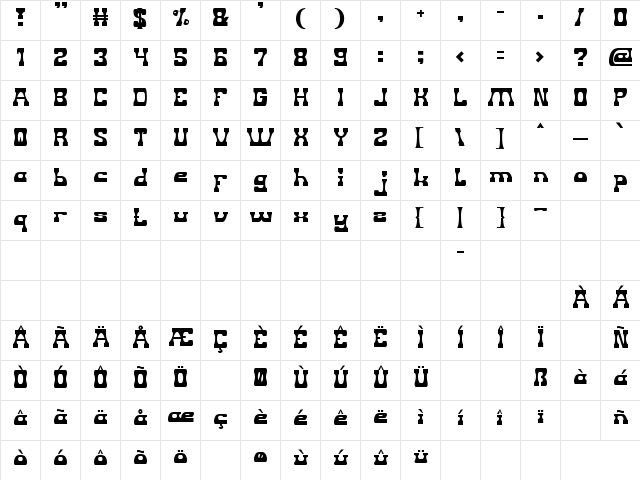
God Is Watching Us Regular
Design Context for God Is Watching Us Typeface
God Is Watching Us is a composed and adaptable typeface that performs quietly and consistently across a wide range of design contexts.